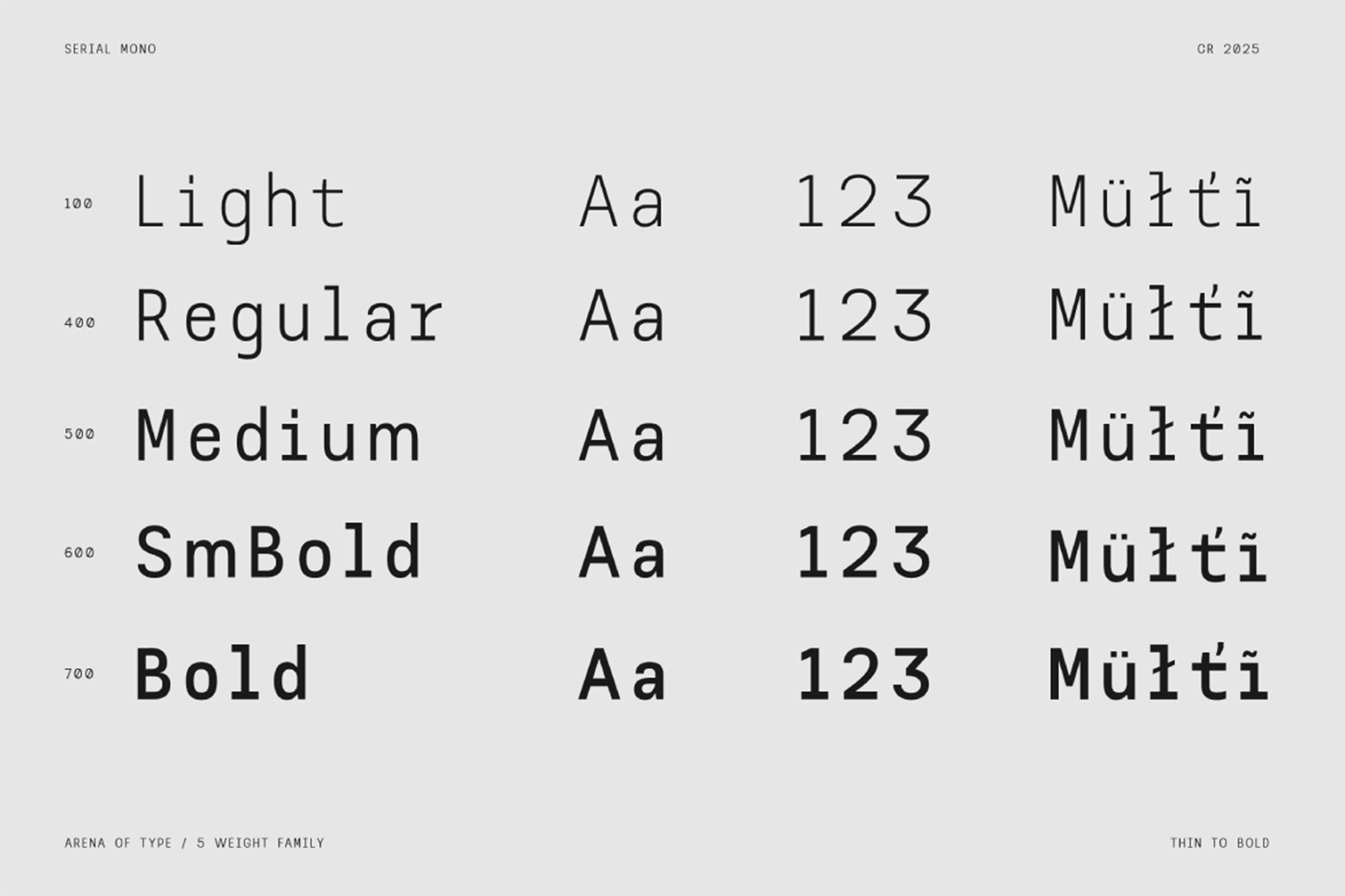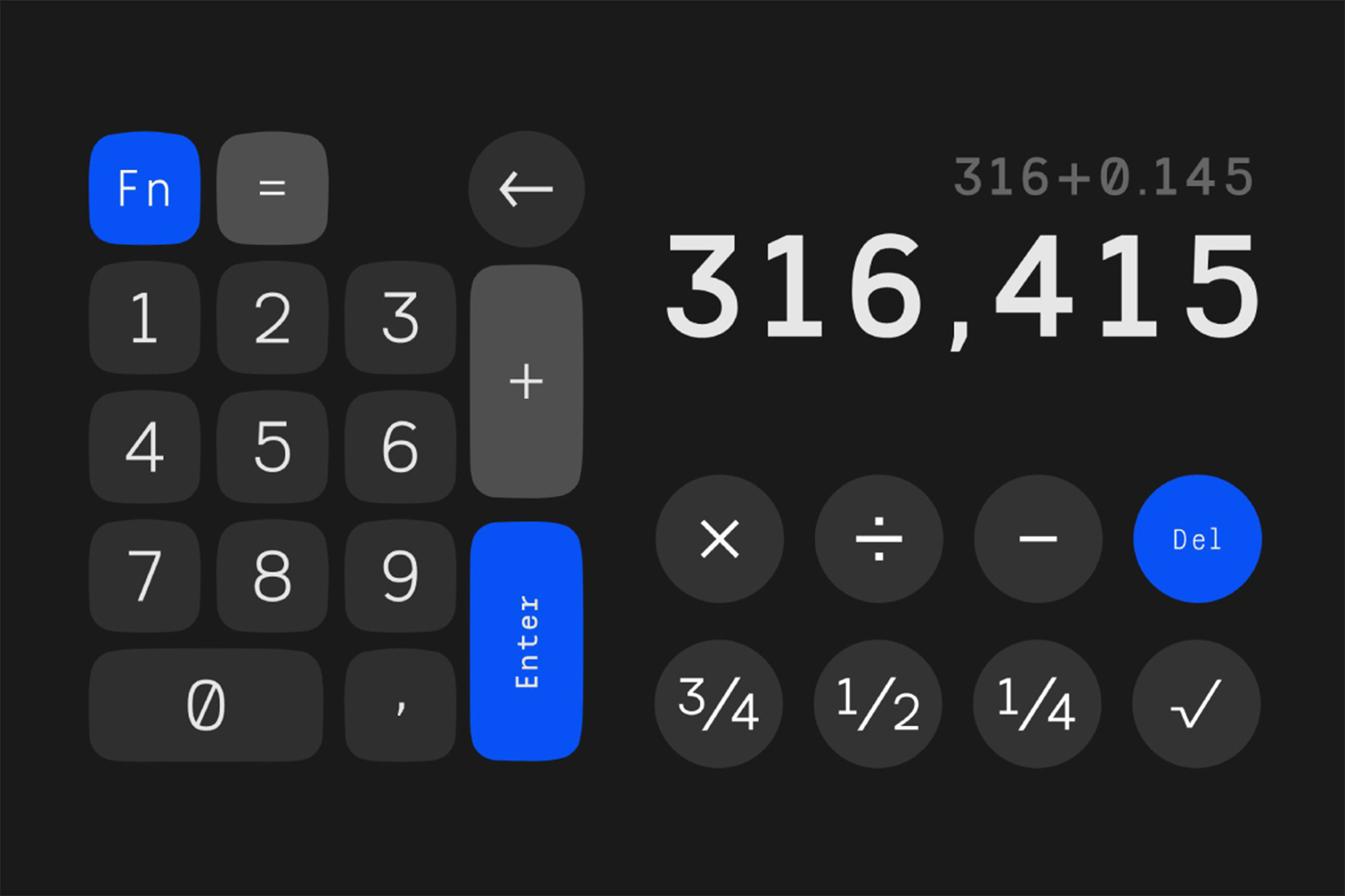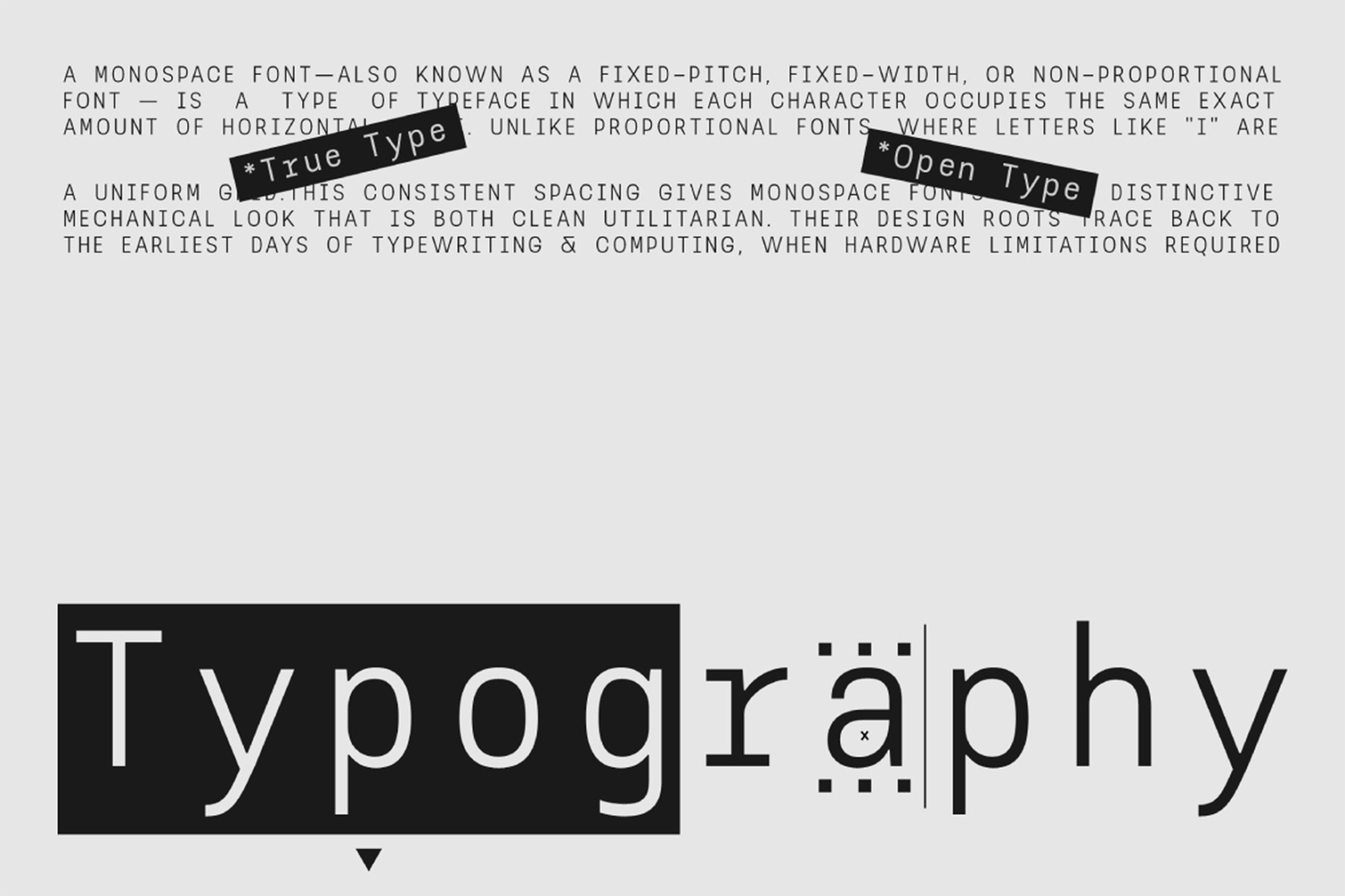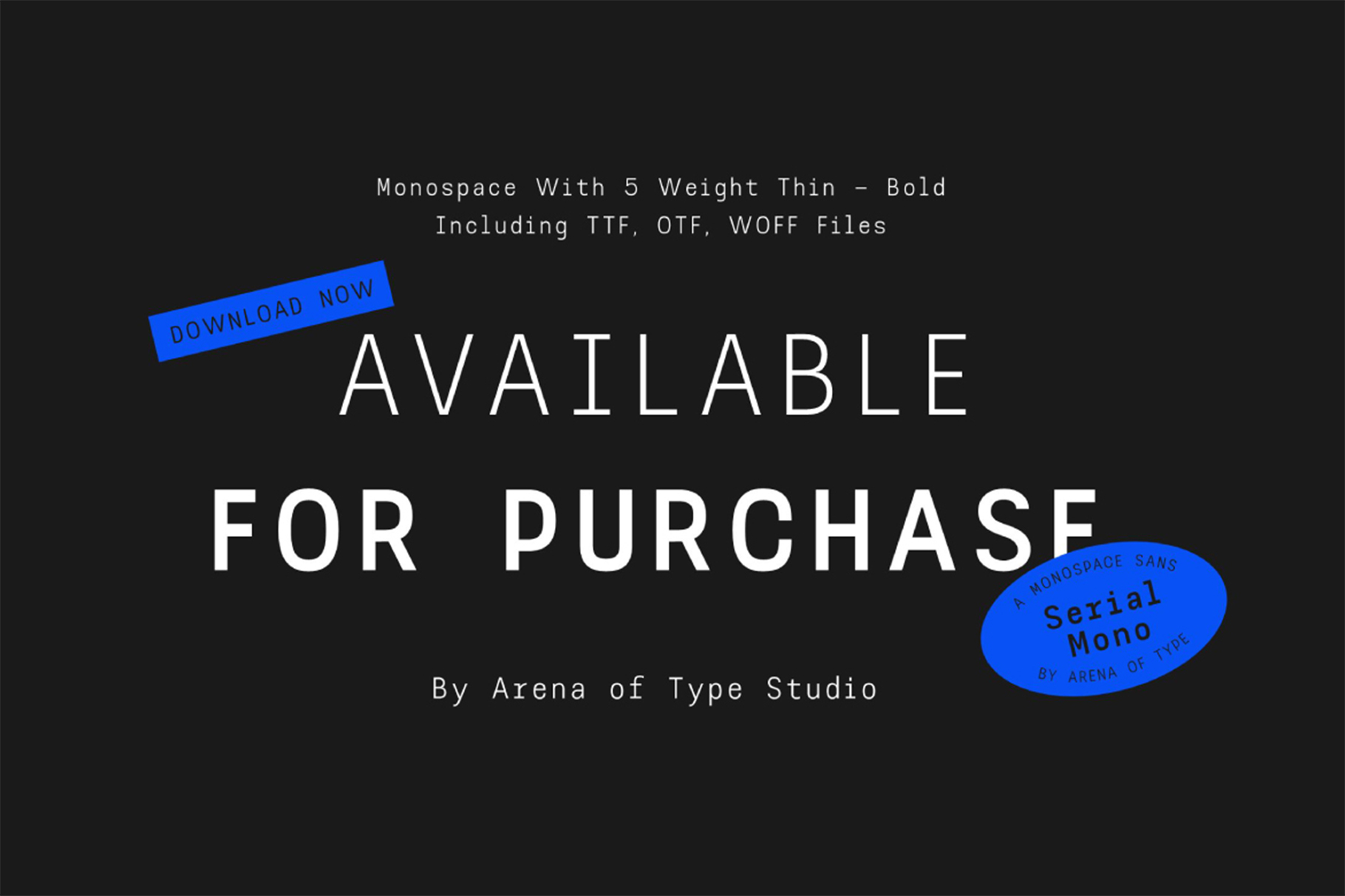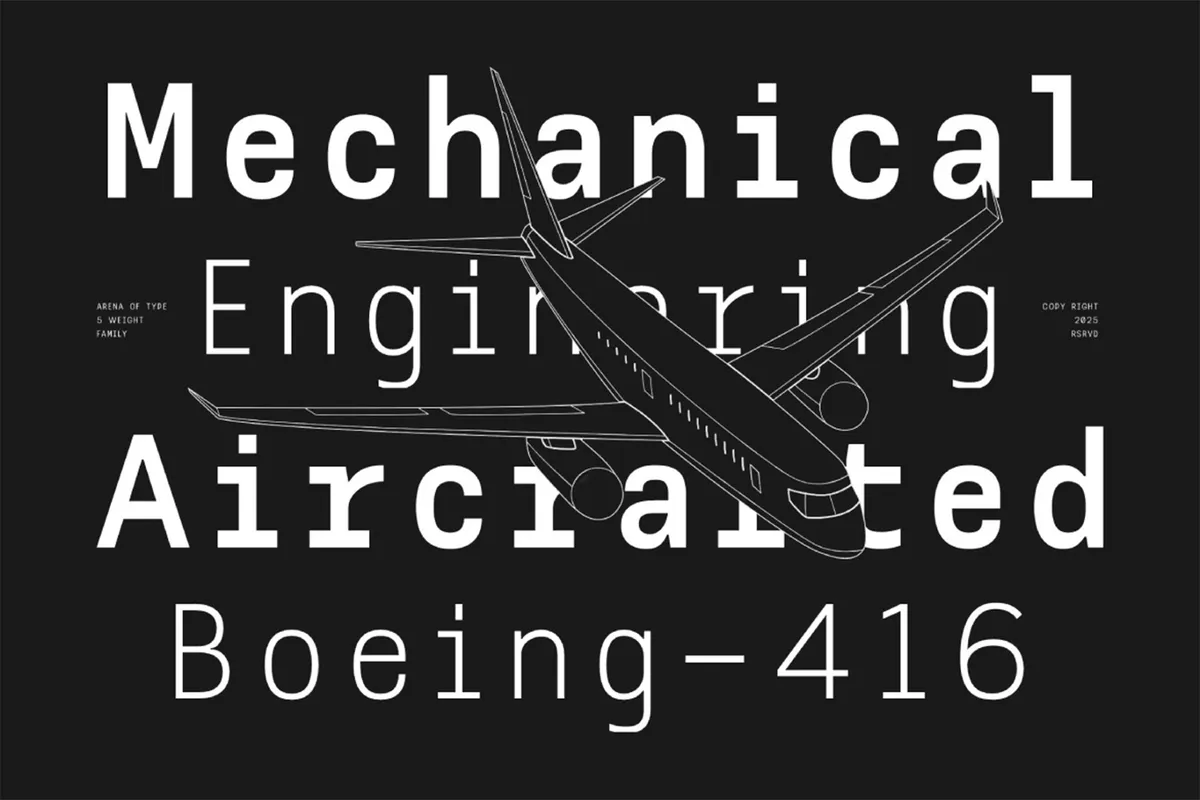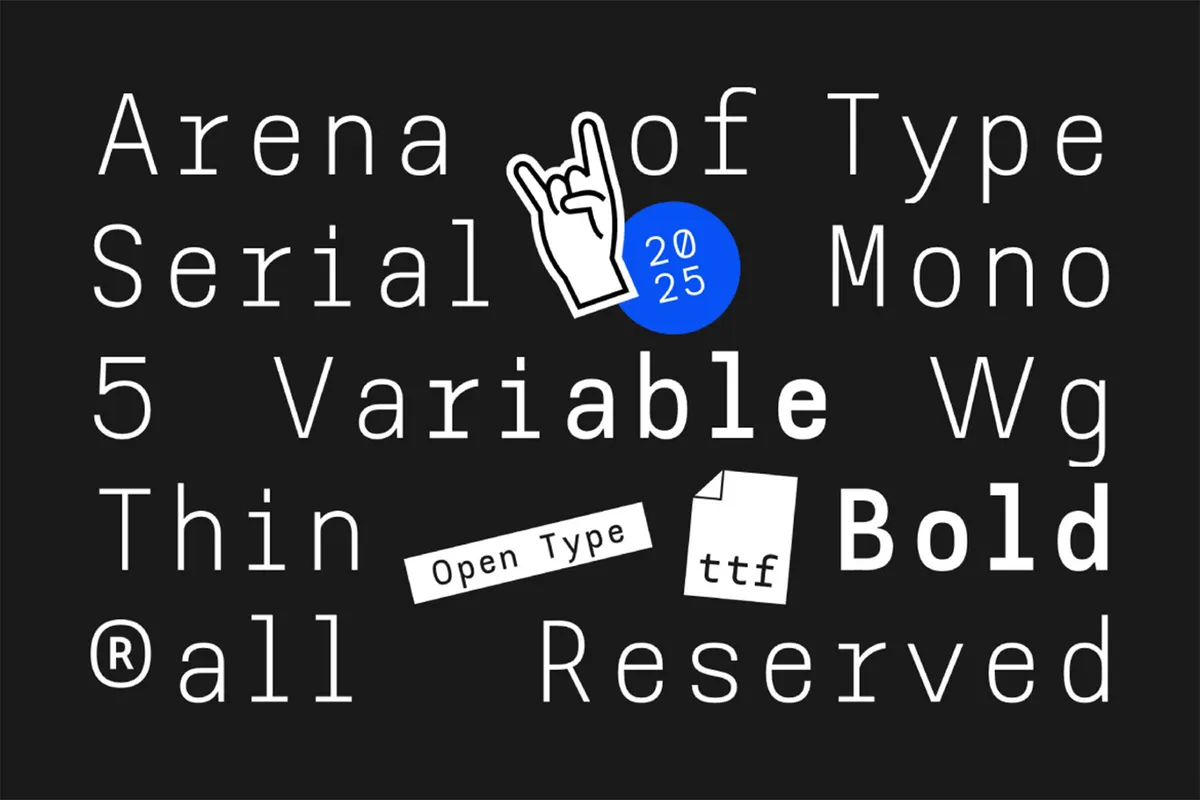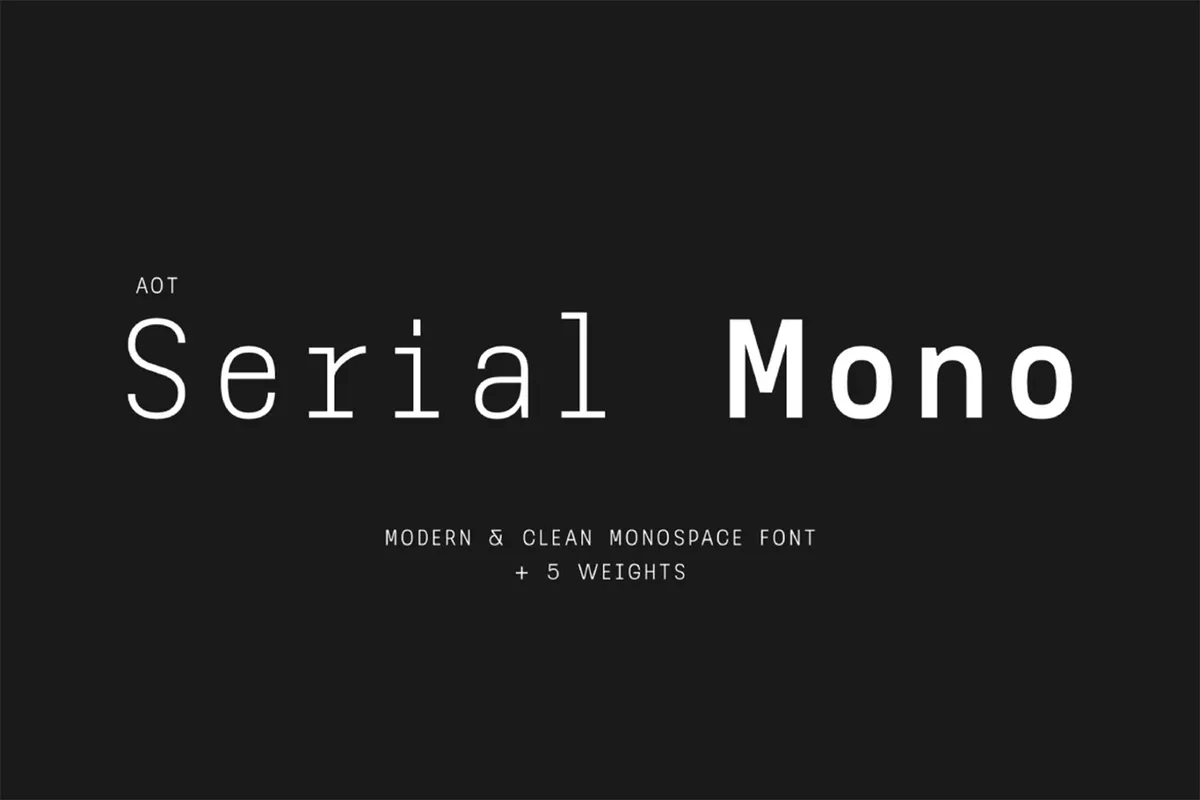
AOT Serial Mono - Modern Monospaced Font
Meet AOT Serial Mono – Modern Monospaced Font , a contemporary typeface built on precision, rhythm, and clean geometry. Designed for creators who value structure but refuse to sacrifice personality, this monospaced font delivers technical clarity with a refined visual voice.
AOT Serial Mono balances strict alignment with subtle stylistic details, making it equally suitable for coding environments, branding systems, editorial layouts, packaging, and modern UI design. Its evenly spaced characters create a harmonious flow, while carefully shaped letterforms prevent the mechanical feel typical of traditional monospace fonts.
The type family includes 5 weights from Thin to Bold , plus a variable font file for ultimate control. Adjust weight fluidly to fine-tune hierarchy, emphasize messaging, or craft dynamic typographic systems with efficiency.
- Modern monospaced typeface
- 5 weights: Thin, Light, Regular, Medium, Bold
- Variable font included
- Clean geometric structure
- Strong readability across sizes